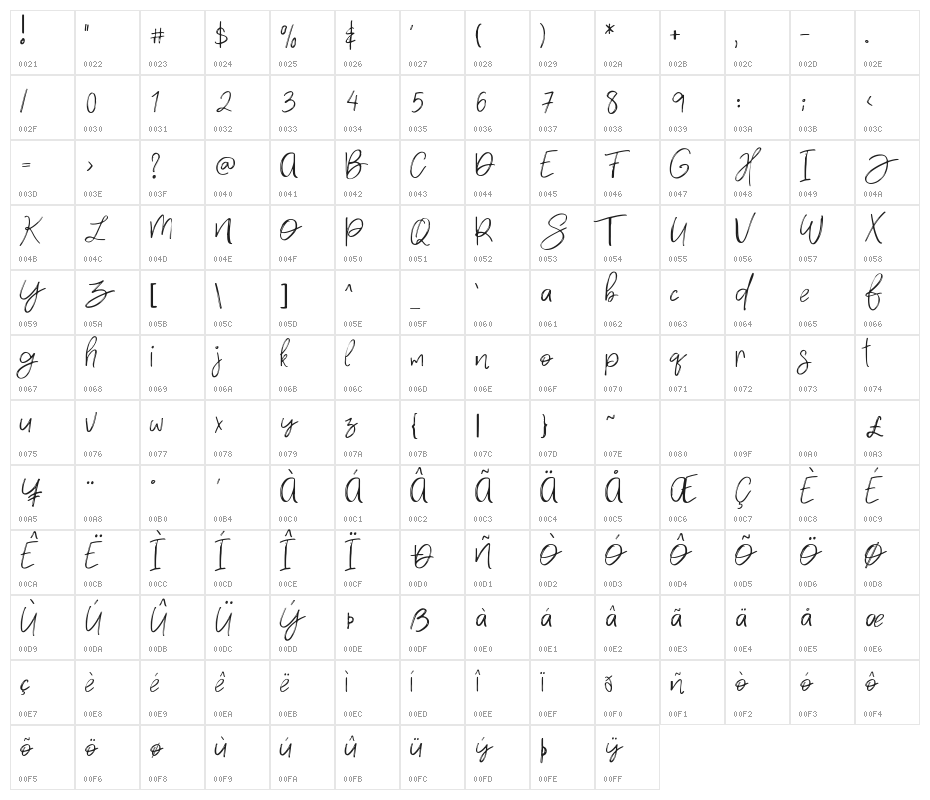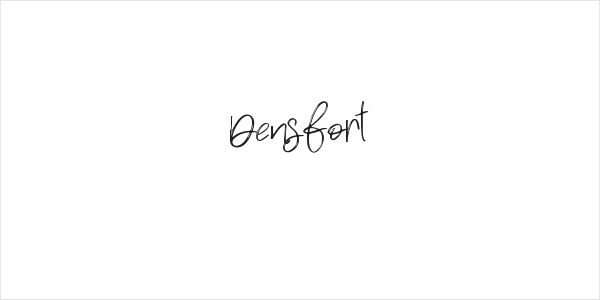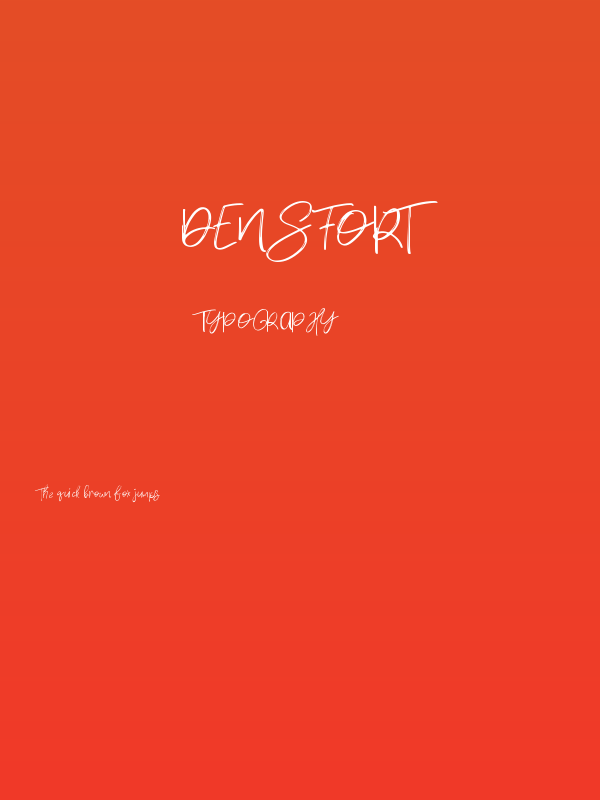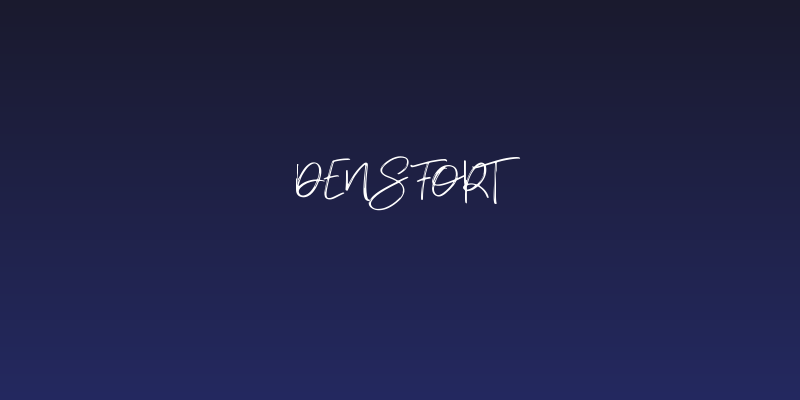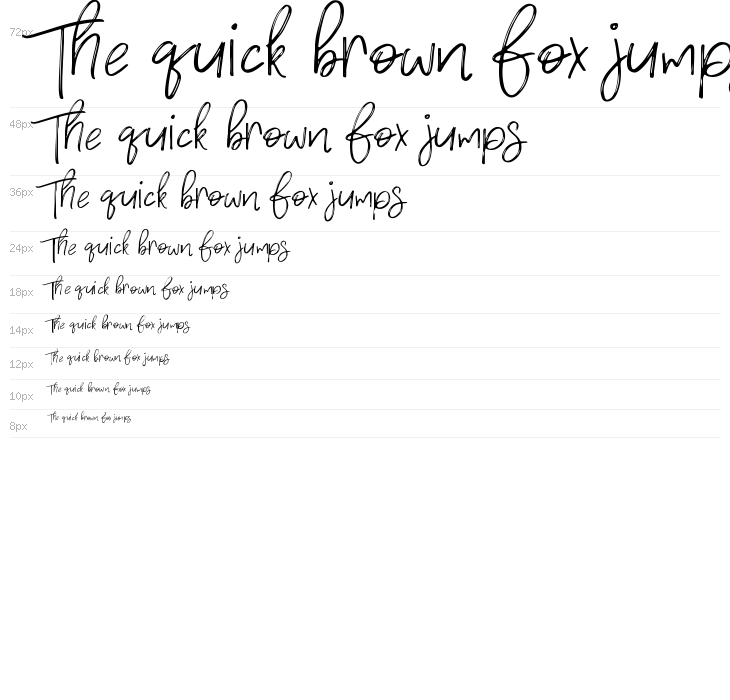
Densfort Font
Densfort Description
This font features a dynamic and fluid handwritten style, characterized by its elegant and flowing letterforms. The uppercase letters exhibit a playful yet sophisticated flair, with each character seamlessly connecting to the next. The lowercase letters maintain a consistent rhythm, enhancing readability while preserving the font's artistic essence. Numbers and special characters are crafted with the same attention to detail, ensuring a cohesive look across all text. The strokes vary in thickness, adding a sense of movement and energy to the design. This font is perfect for projects that require a personal touch or a creative, informal vibe.